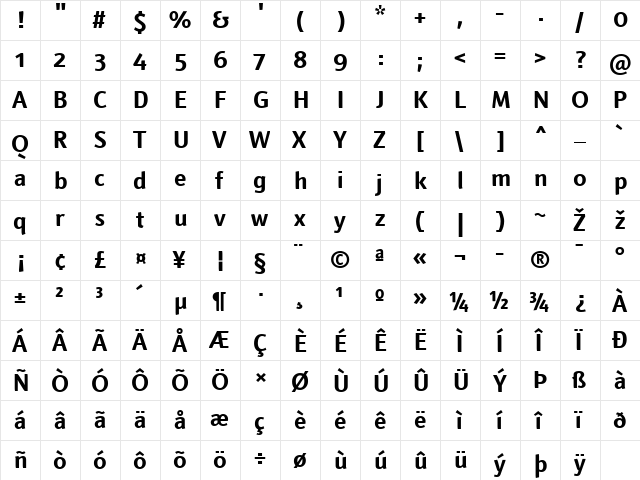
Textra LT Book Bold
| Foundry | Linotype Library GmbH |
| Designer | Jochen Schuss |
Design Context for Textra LT Book Typeface
Textra LT Book takes a measured approach to typography — its balanced proportions and neutral character make it a reliable workhorse for both digital and print work. Its bold stroke weight gives it real presence on the page.